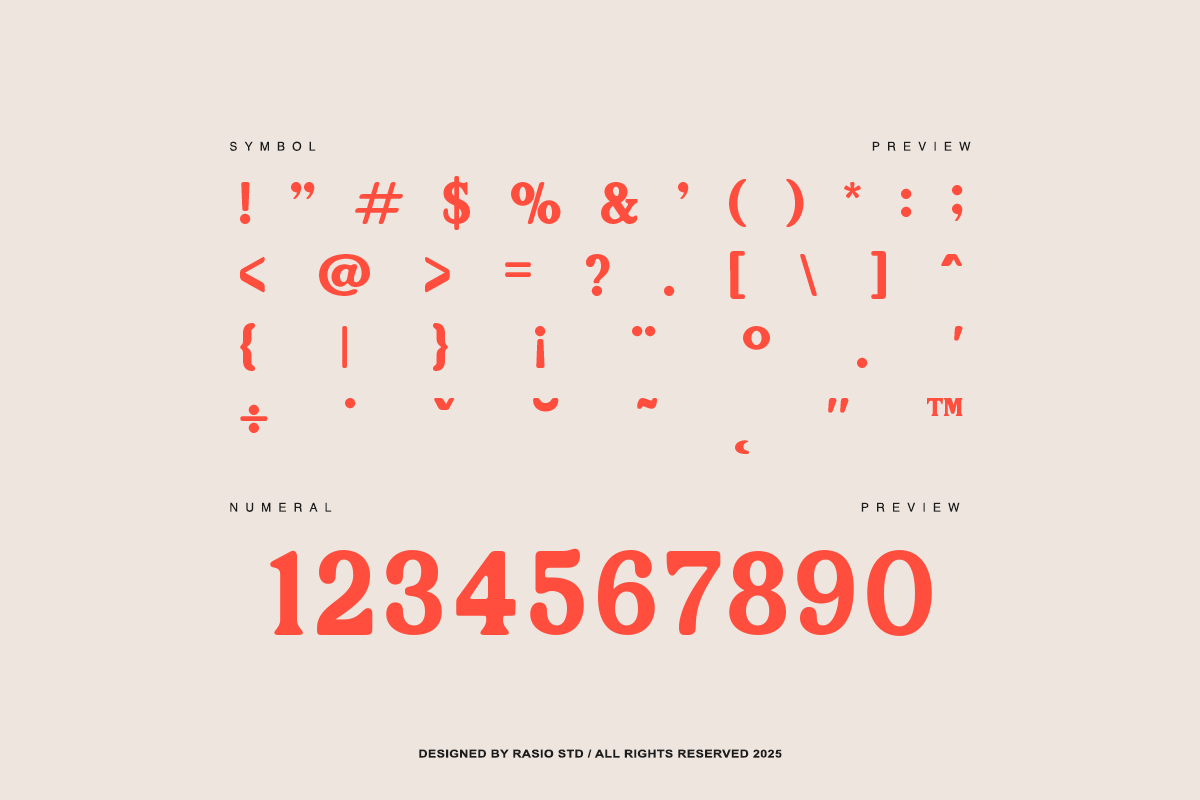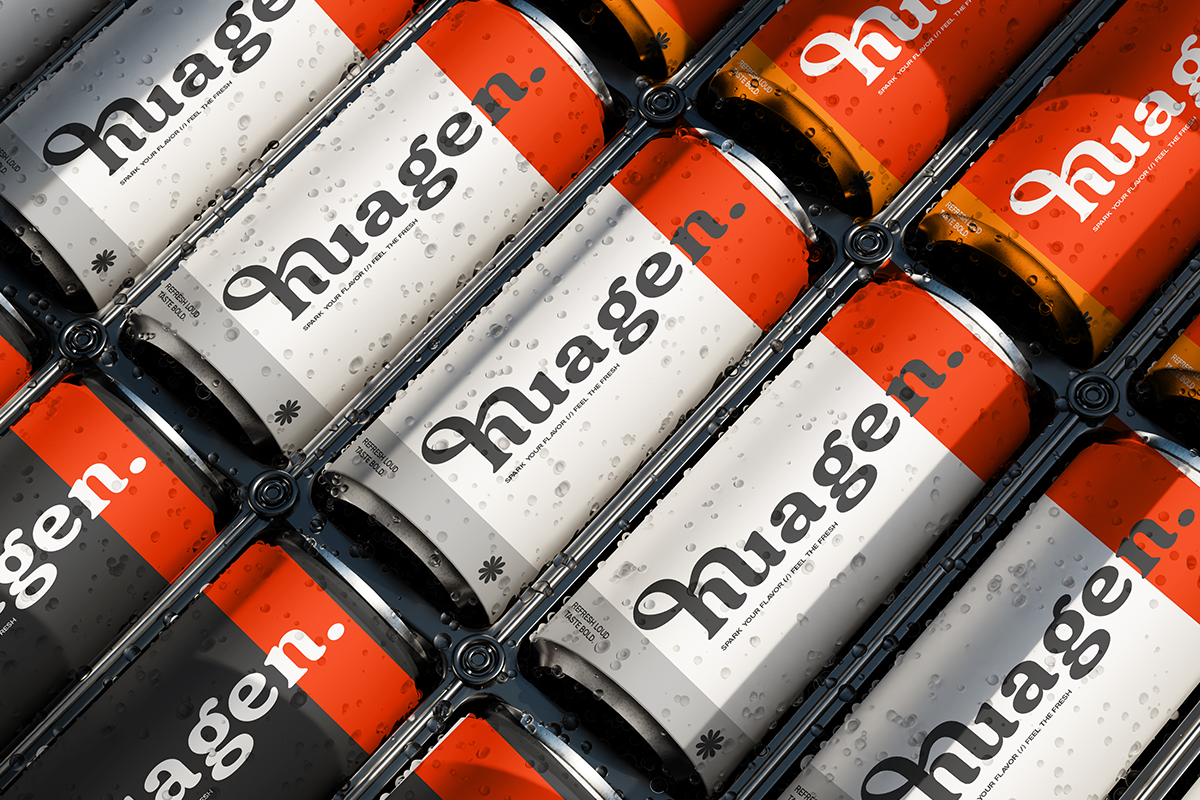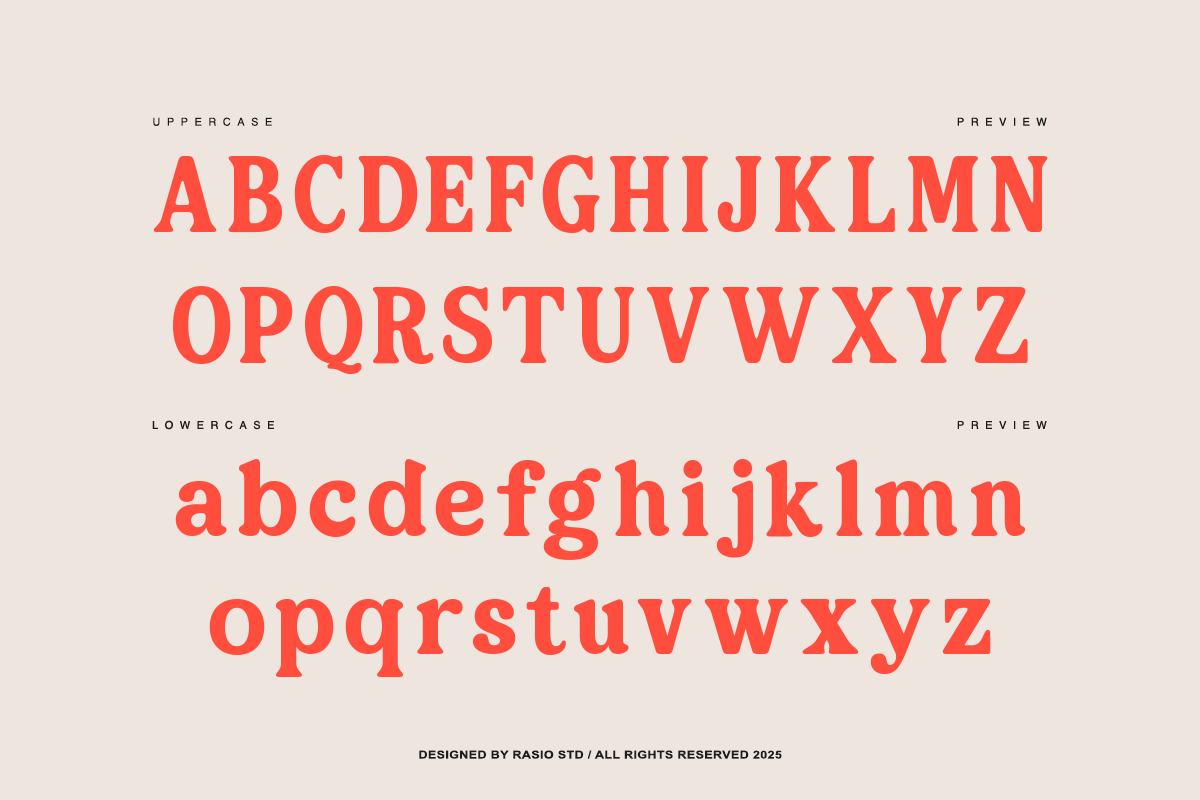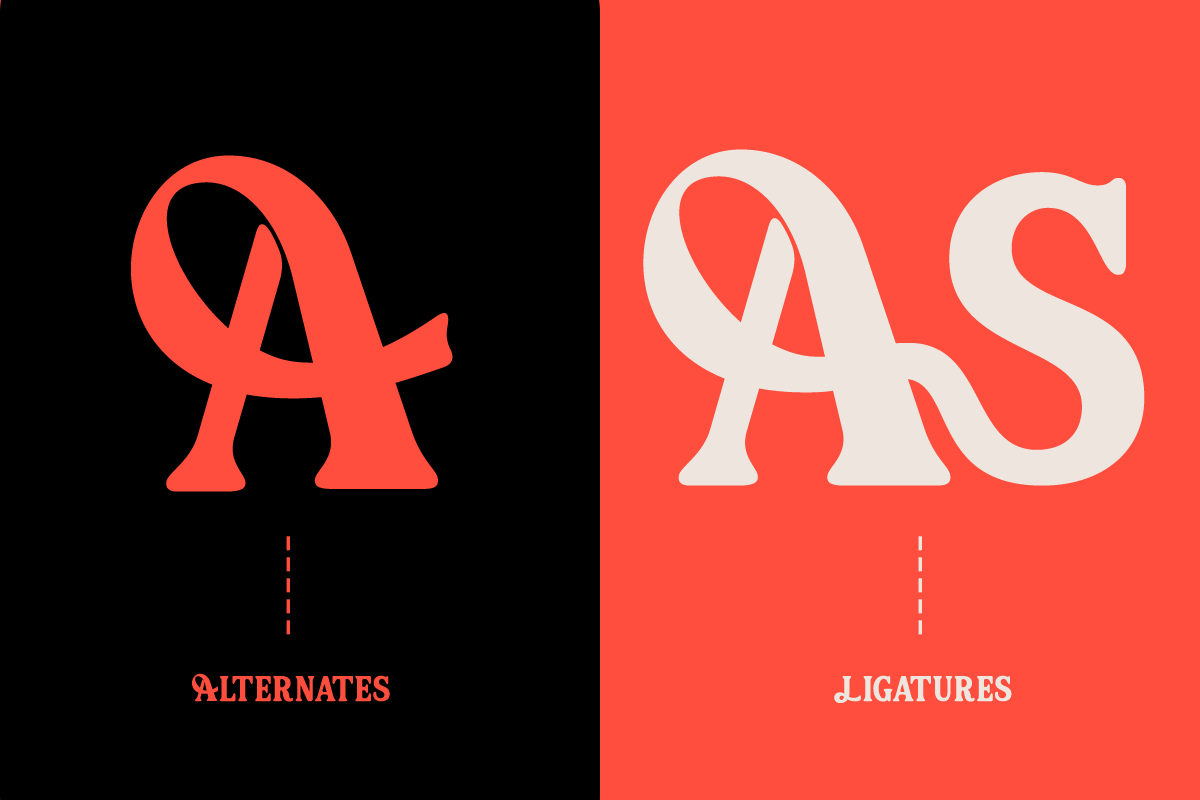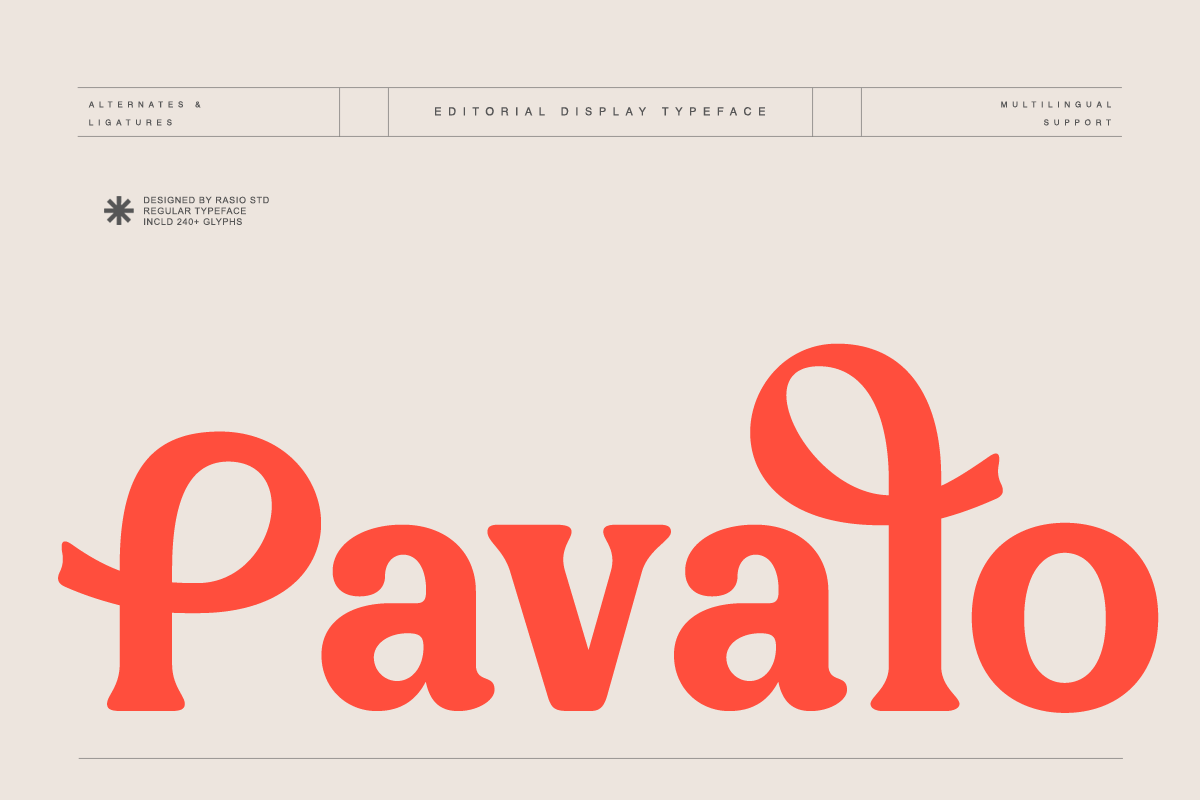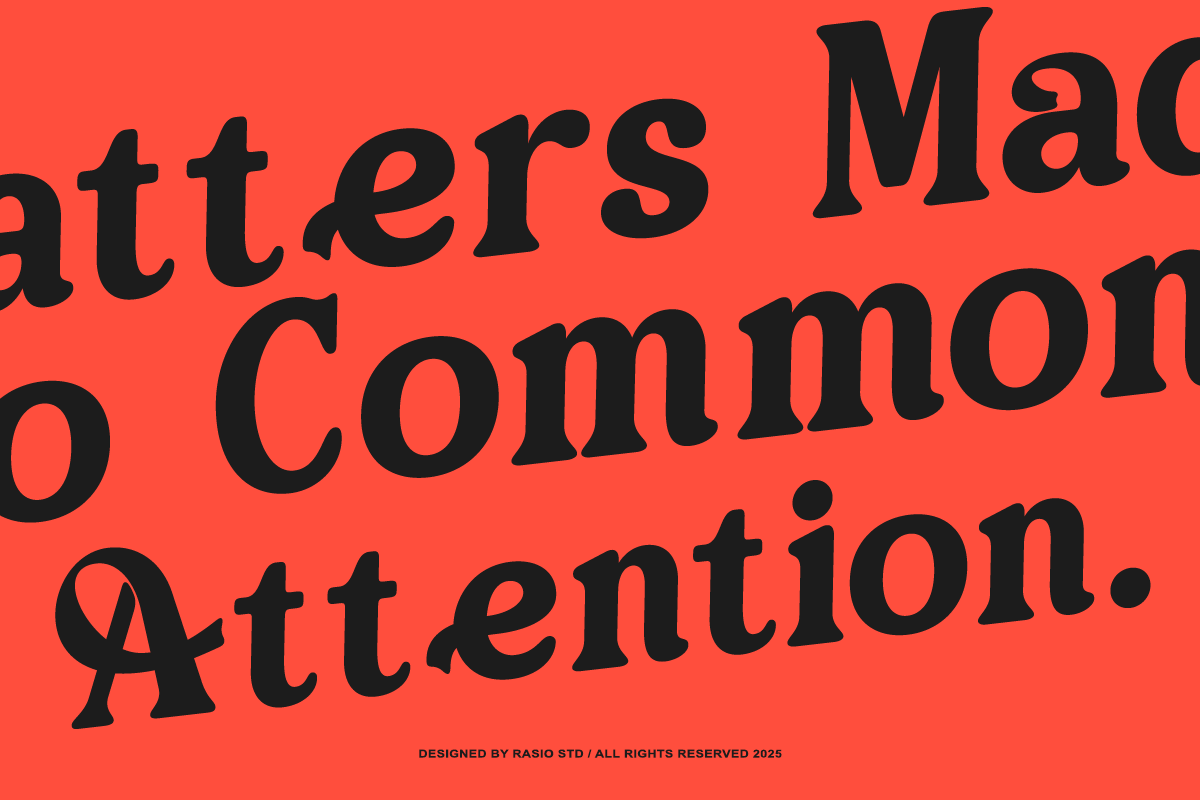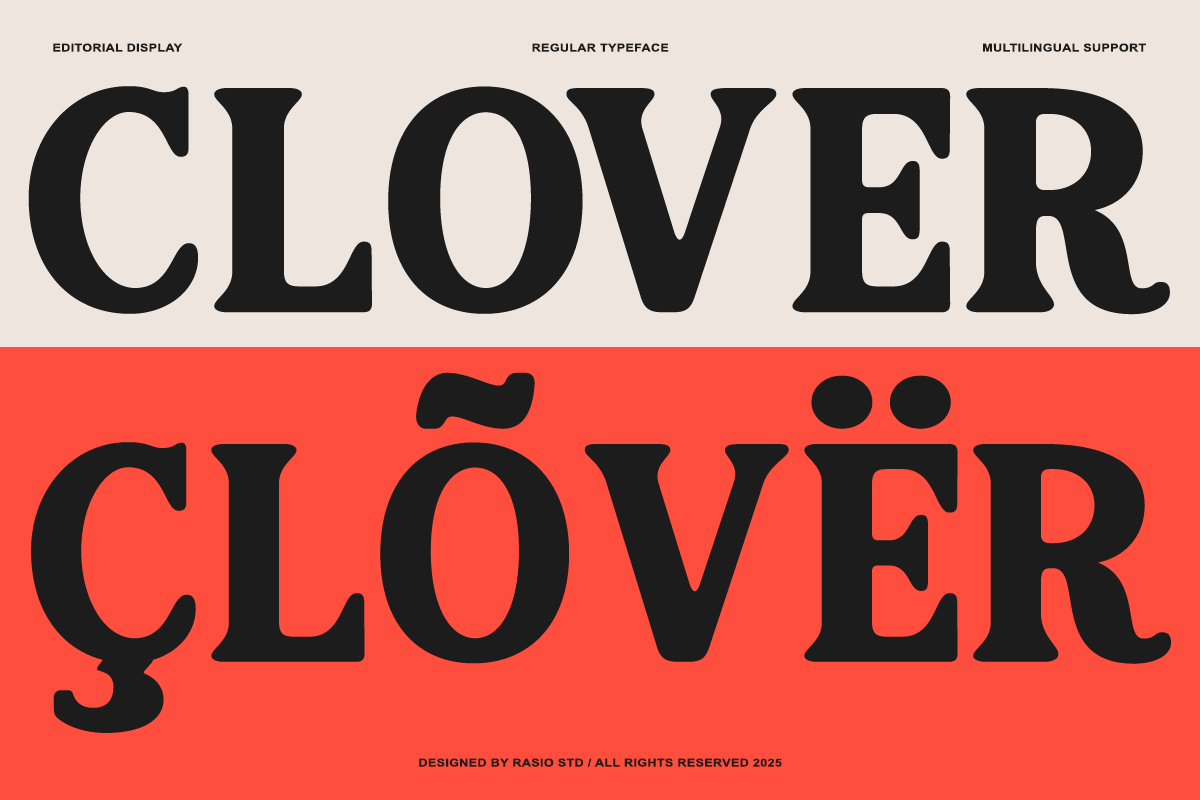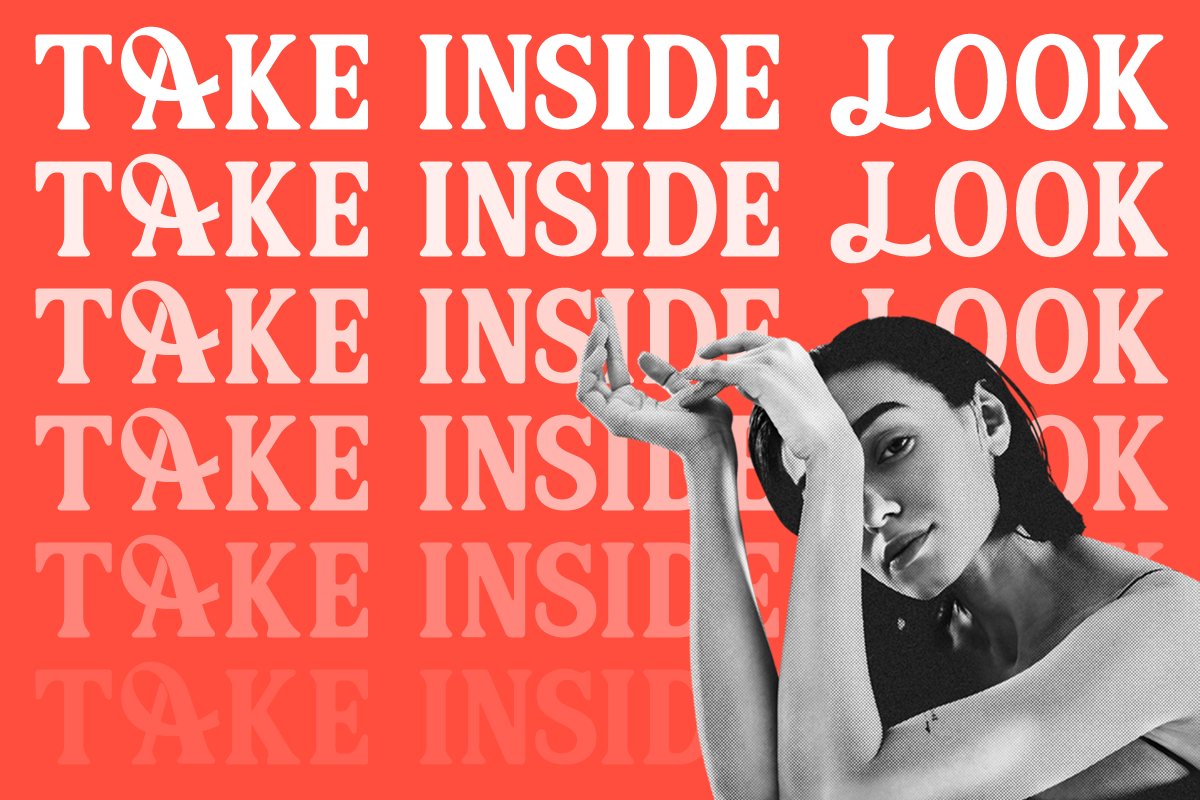
Pavalo Editorial Display Font
Pavalo is a distinctive editorial display serif font with charming character, soft curves, and expressive alternates. Designed for high-end magazine headlines, creative branding, and editorial layouts, Pavalo balances classic serif structure with playful modern twists including stylish ligatures and alternates for added flair. The package includes uppercase, lowercase, punctuation, numbers, multilingual support, and over 240+ glyphs.
Relevance and Use Cases is perfect for editorial layouts, fashion brands, personal portfolios, or high-end product packaging where expressive yet refined typography is needed. Whether it's a magazine masthead, boutique logo, or a stylish social media post, Pavalo elevates your message with elegance and a unique visual rhythm.
- Bold editorial serif design with strong character presence
- High contrast strokes that enhance visual impact and readability
- Distinctive curved terminals and sharp serif details for a refined look
- Slightly expressive letterforms adding personality to each character
- Balanced spacing optimized for impactful headlines and display use
- Editorial layouts and magazine headlines with strong visual impact
- Branding and logo design that require bold and distinctive character
- Fashion campaigns, luxury branding, and high-end visual identities
- Packaging design that emphasizes elegance with a dramatic touch
- Posters, lookbooks, and social media content with expressive typography